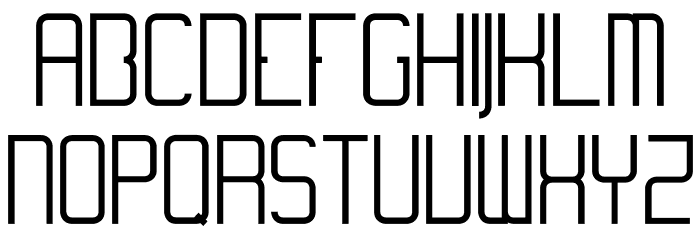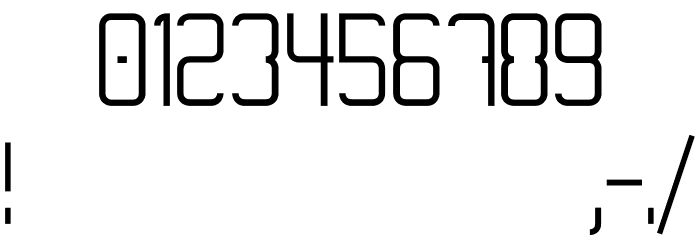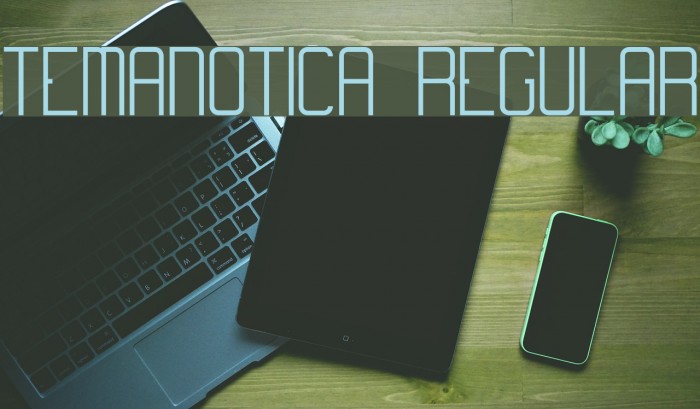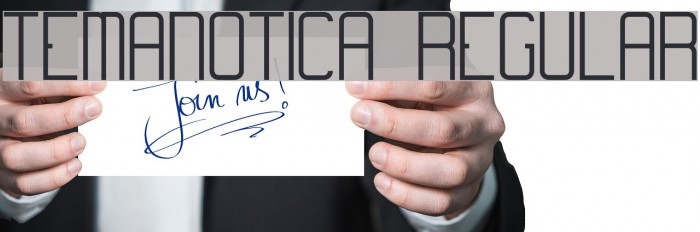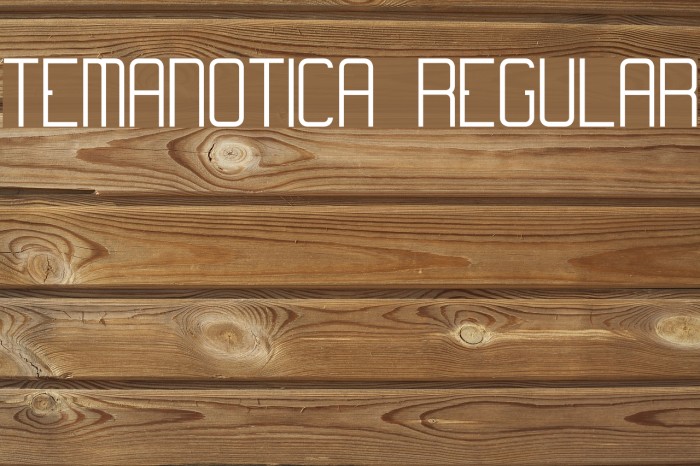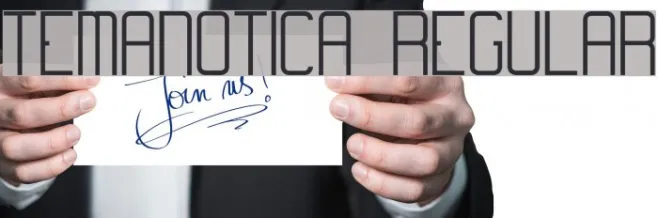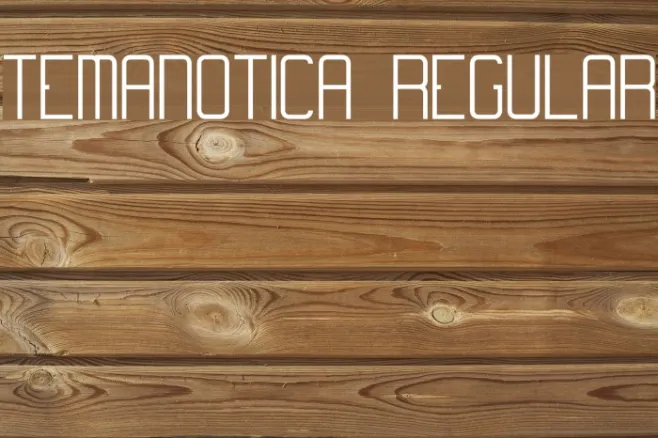
Temanotica Regular Font
This font features a modern, geometric design with clean lines and a structured appearance. The characters are uniform in height, with a consistent stroke width that gives it a sleek and contemporary look. The uppercase and lowercase letters maintain a cohesive style, while the numerals and special characters complement the overall aesthetic. The font's design is minimalistic yet distinctive, making it suitable for a variety of applications where clarity and style are essential.
A modern, geometric font with clean lines and a structured appearance.
- Proposed Projects: Ideal for branding, signage, digital interfaces, and editorial design where a modern and clean look is desired.
- Use Case: Headlines, Logos, Digital Interfaces